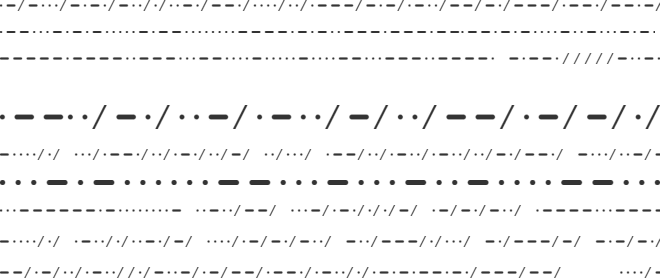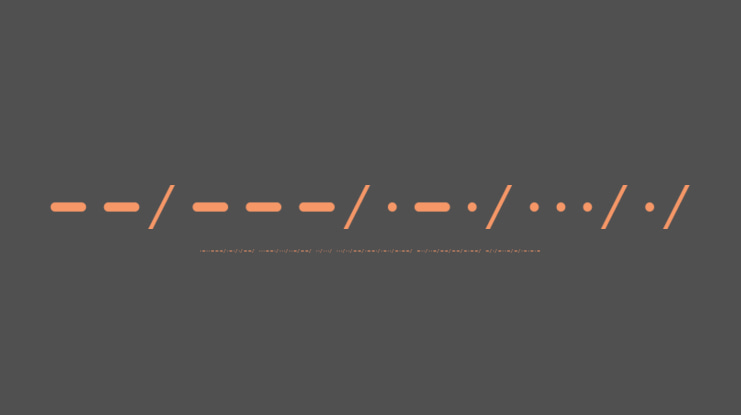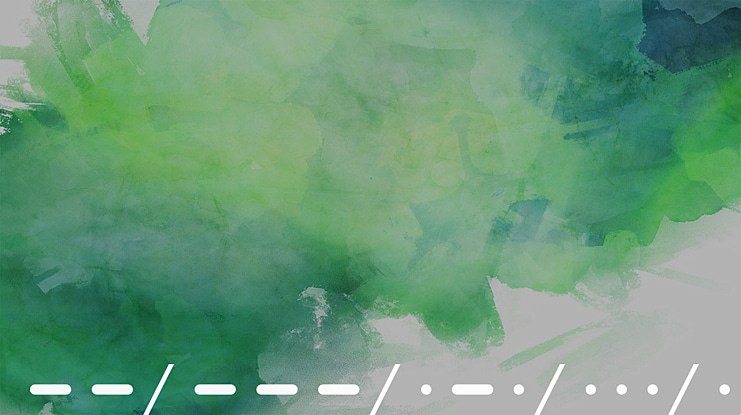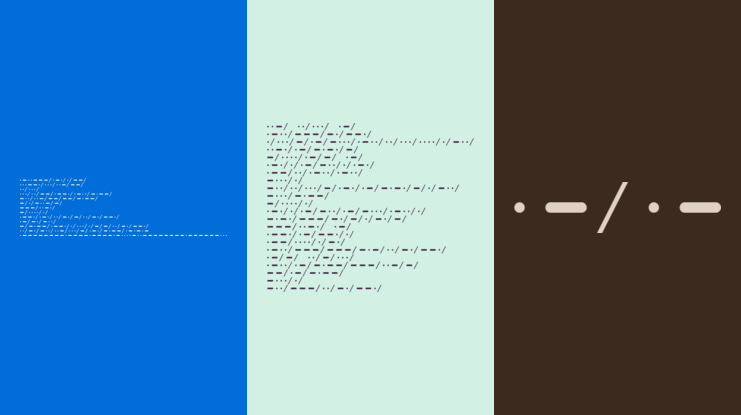
morse Font
Morse code, all letters and symbols: - lowercase letters end with "/". Example: a = .-/ - uppercase letters are the simple code. Example: A = .-
The space is a normal blank space. You can print a "/" by typing any of these characters: | < > & *